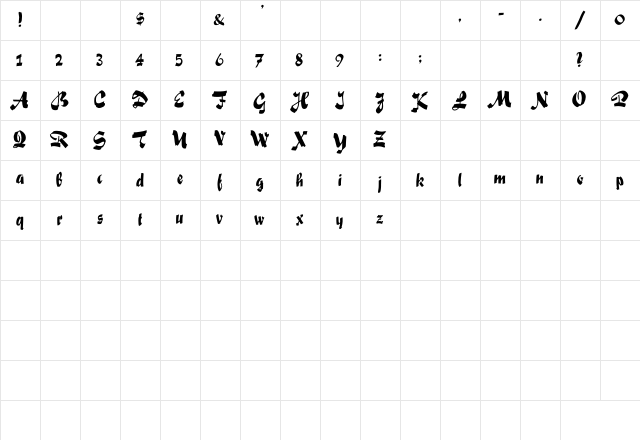
LHF Red Sable Script Regular Free Font
LHF Red Sable  Script Regular
Foundry: Arthur Vanson for letterhead Fonts
Designer: Arthur vanson for Letterhead Fonts
Design Context for LHF Red Sable Script
LHF Red Sable Script flows with the natural rhythm of handwritten lettering, making it ideal for designs that call for warmth and personal expression.
Font Pairing: Combine LHF Red Sable Script with a simple geometric sans for maximum contrast - the tension between flowing curves and clean structure is a classic typographic pairing.